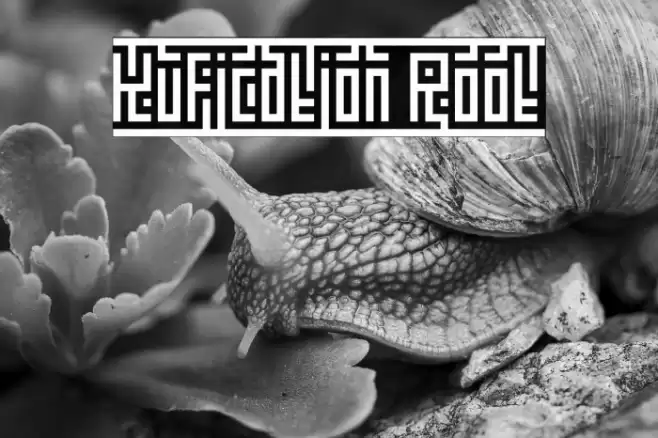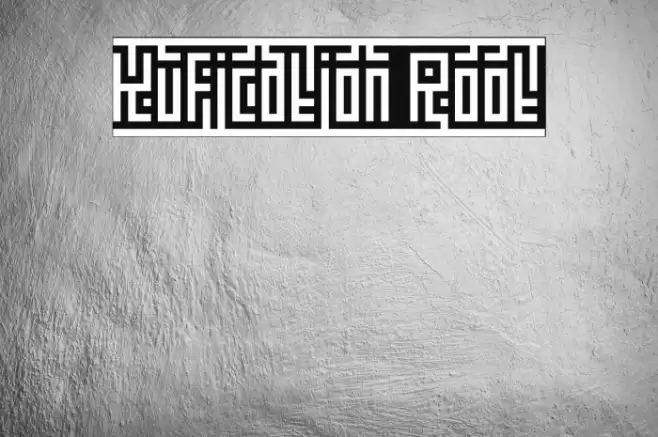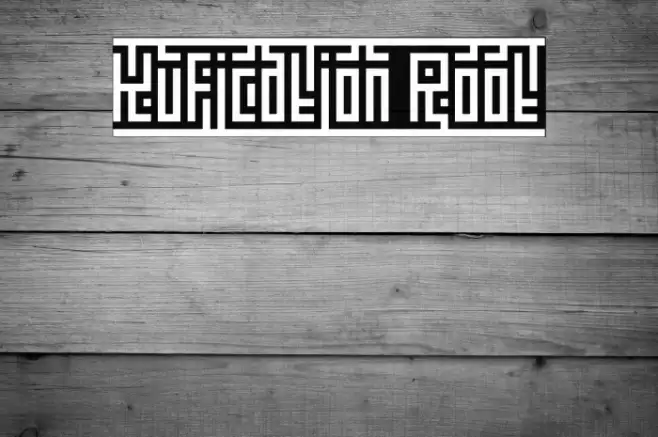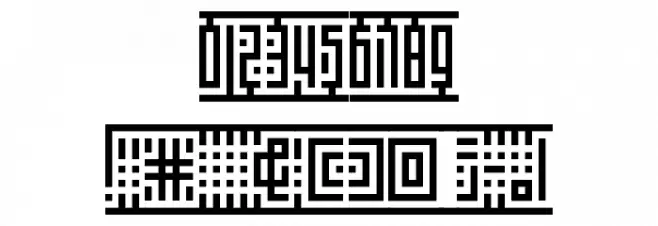
Kufication Root Font
Kufication Root Description
This font features a highly geometric and maze-like design, with each character constructed from bold, interconnected lines that create a complex, grid-like appearance. The uppercase and lowercase letters maintain a consistent height, contributing to a uniform look. The numerals and special characters follow the same intricate style, making them visually cohesive with the alphabet. The overall aesthetic is reminiscent of digital or futuristic themes, with a strong emphasis on symmetry and precision. This font is best suited for projects that require a striking and unconventional visual impact.
A geometric, maze-like font with bold, interconnected lines and a futuristic aesthetic from Regular fonts.
- Font: Kufication Root
- Proposed Projects: Ideal for digital art, video game design, sci-fi themed posters, and modern branding projects.
- Character Spacing: Tight